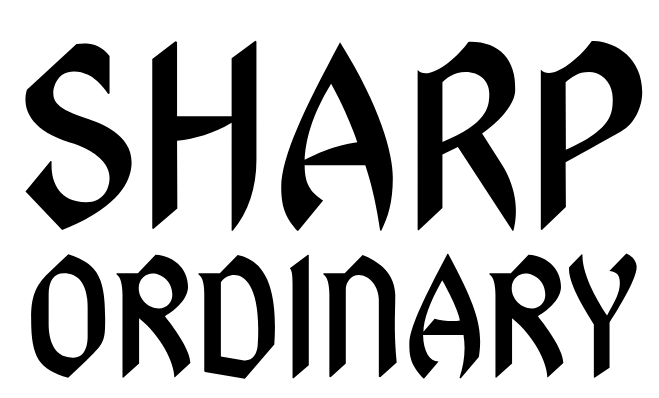
BC Rebecca Font Family
The Rebecca font family is loosely inspired by the impression evoked by medieval calligraphy and manuscripts. Its inspiration were the Irish-Anglo-Saxon miniscule of the seventh century, the Rotunda script, the Uncial script, the Langobard book typeface, Lettre Bâtarde and also Literra Beneventana – excellent calligraphic minuscules, which were created many centuries ago by monks at the monastery of Monte Cassino.